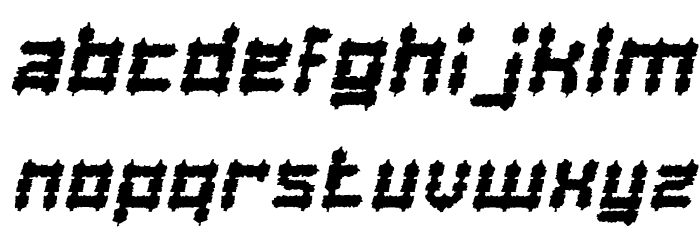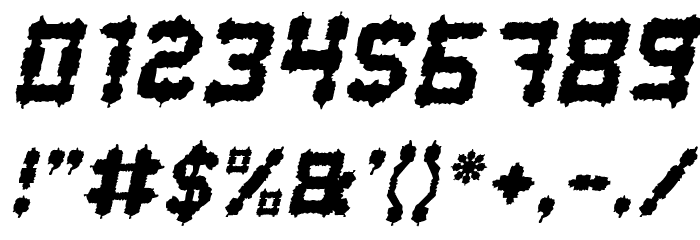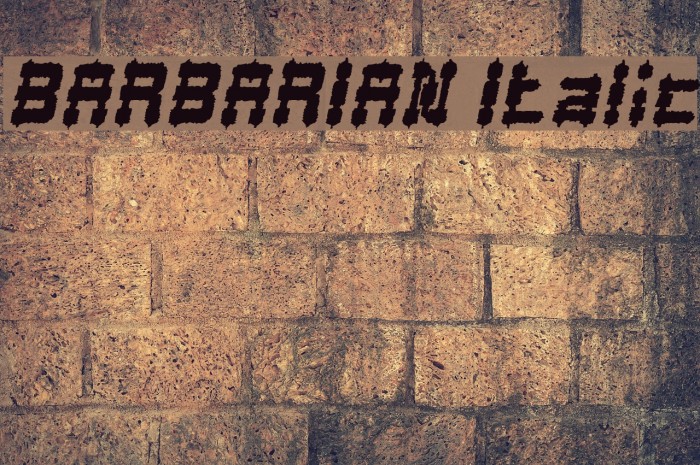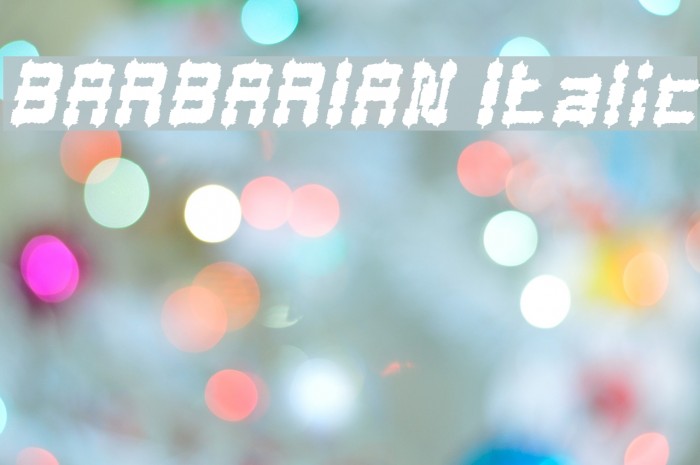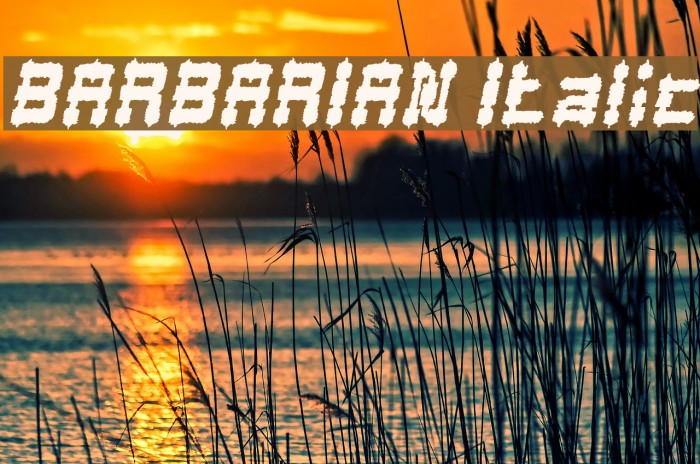
BARBARIAN Italic Font
This font features a rugged, jagged appearance that gives it a bold and aggressive look. The characters are italicized, adding a dynamic and forward-leaning posture. Each letter is crafted with uneven edges, resembling a rough, hand-chiseled style. The uppercase and lowercase letters maintain a consistent design, with numbers and special characters following the same aesthetic. The overall impression is one of strength and intensity, making it suitable for projects that require a dramatic and impactful visual presence.
A rugged, italicized font with a bold, jagged appearance.
- Proposed Projects: Ideal for use in video game titles, movie posters, or any project requiring a strong, aggressive visual impact.